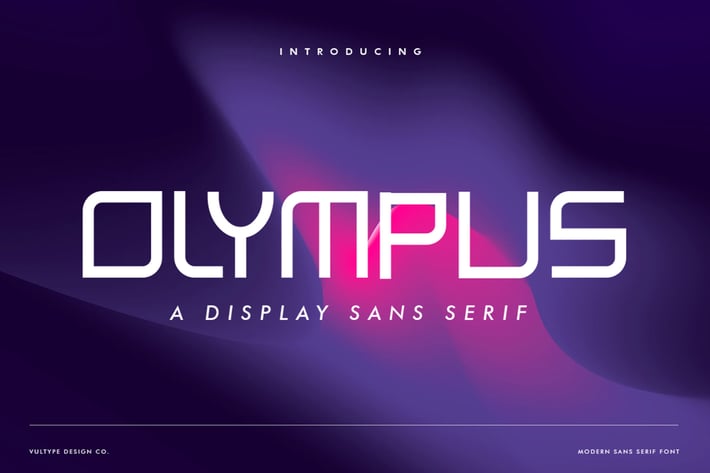
OLYMPUS - Futuristic Font
Introducing, OLYMPUS, a futuristic modern font
OLYMPUS is a sans based font with unique lowercase that will make your design looks futuristic and modern. You can use this font for any purpose, especially to make logotype.
You can mix and match the uppercase and lowercase to make your logo more readable. This font also have special alternates that will make your design more stand-out!